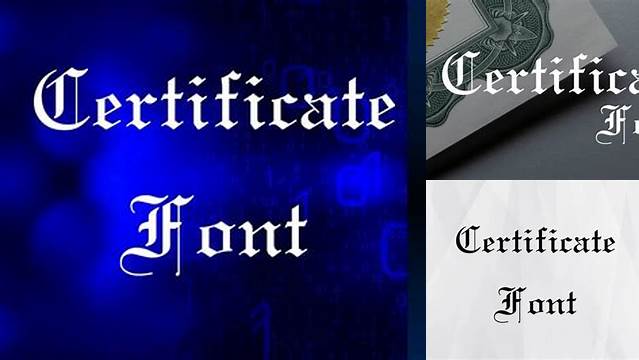
Free Certificate Fonts PDF Download
Looking to create a stunning certificate but struggling with the font? You've come to the right place! Choosing the right font can make or break the overall look and feel of your certificate. It needs to be elegant, readable, and reflect the importance of the achievement being celebrated. In this article, we'll dive into the world of free certificate fonts available for PDF download. We'll cover a range of styles, from classic and formal to modern and creative, ensuring you find the perfect fit for your needs. Plus, we'll explore the best places to download these fonts and how to use them effectively. So, let's get started and make your certificates truly shine!
Certificate Font Styles: An Overview
Choosing the right font is crucial for creating a certificate that looks professional and impactful. Different font styles evoke different feelings, so it's essential to select one that aligns with the tone and purpose of the certificate. Let's explore some popular certificate font styles.
1. Calligraphy Fonts for Certificates
Calligraphy fonts are often the go-to choice for certificates, adding a touch of elegance and sophistication. These fonts mimic the beautiful strokes of handwritten calligraphy, making the certificate feel special and personalized. Think of fonts with flowing lines and graceful curves, perfect for recognizing significant achievements. However, it's important to use calligraphy fonts judiciously. Overusing ornate fonts can make the certificate look cluttered and difficult to read. Stick to using them for the recipient's name or the certificate title and opt for a simpler font for the body text. Some popular calligraphy fonts for certificates include Great Vibes, Allura, and Alex Brush. These fonts are available for free certificate font download PDF, making them accessible for everyone. When incorporating calligraphy fonts, ensure they complement the overall design and don't overshadow other elements. Remember, balance is key!
2. Serif Fonts for Formal Certificates
When it comes to formal certificates, serif fonts are your best friend. These fonts, characterized by the small strokes or "serifs" at the end of each character, exude professionalism and tradition. Think of classic fonts like Times New Roman, Garamond, and Georgia – they've been used in formal documents for ages and for good reason. They're legible, elegant, and convey a sense of authority. Serif fonts are particularly well-suited for academic certificates, awards, and diplomas. They give the certificate a timeless and authoritative feel, perfect for recognizing important accomplishments. Plus, many serif fonts are available for free certificate font download PDF, so you can easily incorporate them into your designs. When using serif fonts, make sure to choose a size that's easy to read and avoid overly decorative versions that might detract from the overall formality. Stick to the classics, and you can't go wrong!
3. Sans-Serif Fonts for Modern Certificates
For a more modern certificate design, sans-serif fonts are an excellent choice. These fonts, lacking the small strokes (serifs) found in traditional fonts, offer a clean, minimalist look that's perfect for contemporary designs. Think of fonts like Arial, Helvetica, and Open Sans – they're widely used for their clarity and readability. Sans-serif fonts are ideal for certificates that aim to convey a sense of innovation, progress, or a forward-thinking approach. They're often used for training certificates, professional development awards, or certificates recognizing modern achievements. Many sans-serif fonts are available for free certificate font download PDF, making them a versatile option for various projects. When using sans-serif fonts, consider pairing them with a contrasting font for a balanced and visually appealing design. For example, you could use a sans-serif font for the body text and a calligraphy font for the recipient's name or the certificate title. This combination adds a touch of elegance while maintaining a modern feel.
4. Script Fonts for Elegant Certificates
Script fonts are another fantastic option for adding a touch of elegance to your certificates. These fonts mimic the fluidity and grace of handwriting, making them perfect for certificates that need a personal and sophisticated touch. Think of fonts like Brush Script, Pacifico, and Lobster – they're stylish and eye-catching. Script fonts are often used for certificates of appreciation, recognition of personal achievements, or any certificate where a sense of warmth and personalization is desired. However, it's crucial to use script fonts sparingly. Overusing them can make the certificate look cluttered and difficult to read. Stick to using them for key elements like the recipient's name or the certificate title, and opt for a simpler font for the body text. Many stunning script fonts are available for free certificate font download PDF, allowing you to add a touch of elegance without breaking the bank. When incorporating script fonts, make sure they complement the overall design and don't clash with other elements. Balance is key to creating a visually appealing certificate.
5. Decorative Fonts for Unique Certificates
If you're looking to create a truly unique certificate, decorative fonts can be a great way to go. These fonts come in a wide variety of styles, from vintage and whimsical to bold and futuristic, allowing you to create a certificate that stands out from the crowd. Think of fonts with unusual shapes, intricate details, or playful designs – they can add a lot of personality to your certificate. Decorative fonts are often used for certificates that need to be eye-catching and memorable, such as event participation certificates, special achievement awards, or certificates for creative fields. However, it's crucial to use decorative fonts with caution. Overusing them can make the certificate look unprofessional and difficult to read. Stick to using them for small elements like headings or accents, and opt for a simpler font for the main text. Many interesting decorative fonts are available for free certificate font download PDF, giving you plenty of options to choose from. When incorporating decorative fonts, make sure they align with the overall tone and purpose of the certificate. A well-chosen decorative font can add a touch of flair and make your certificate truly special.
Top Websites for Free Certificate Fonts
Finding the perfect font for your certificate doesn't have to break the bank. There are numerous websites offering a wide selection of free certificate fonts, often available in PDF format for easy download and installation. Let's explore some of the top resources where you can discover your next favorite font.
6. Google Fonts
Google Fonts is a treasure trove of high-quality, open-source fonts that are completely free to use. This platform offers a vast library of fonts, ranging from classic serif and sans-serif options to elegant script and decorative styles. You can easily browse through the collection, filter by category, and even preview how the font will look in different sizes and styles. Google Fonts is particularly useful for finding fonts that are web-friendly, ensuring your certificate looks consistent whether it's printed or viewed online. Many fonts on Google Fonts are perfect for certificates, such as Montserrat, Raleway, and Roboto. Plus, they offer a convenient way to download the fonts in various formats, including PDF, making them easy to incorporate into your designs. If you're looking for a reliable source for free certificate font download PDF, Google Fonts is definitely worth checking out. The platform's user-friendly interface and extensive selection make it a go-to resource for designers and anyone looking to enhance their projects with beautiful typography.
7. Font Squirrel
Font Squirrel is another fantastic resource for free certificate fonts. This website prides itself on offering fonts that are 100% free for commercial use, meaning you can use them for any project without worrying about licensing issues. Font Squirrel has a curated collection of fonts, ensuring that everything available on the site is of high quality. You'll find a wide variety of styles, including elegant serif fonts, modern sans-serif fonts, and beautiful script fonts perfect for certificates. The website also offers a handy font identifier tool, which can help you find a font similar to one you've seen elsewhere. Font Squirrel makes it easy to download fonts in various formats, including PDF, so you can quickly add them to your design software. If you're looking for a reliable source for free certificate font download PDF that offers fonts with commercial licenses, Font Squirrel is an excellent choice. The website's focus on quality and licensing makes it a trusted resource for designers and creators.
By avoiding these common mistakes and following the tips outlined in this article, you can create certificates that are visually appealing, meaningful, and impactful. Remember, the goal is to recognize achievement in a way that is both professional and personal. With the right font, design, and attention to detail, you can create certificates that will be cherished for years to come.